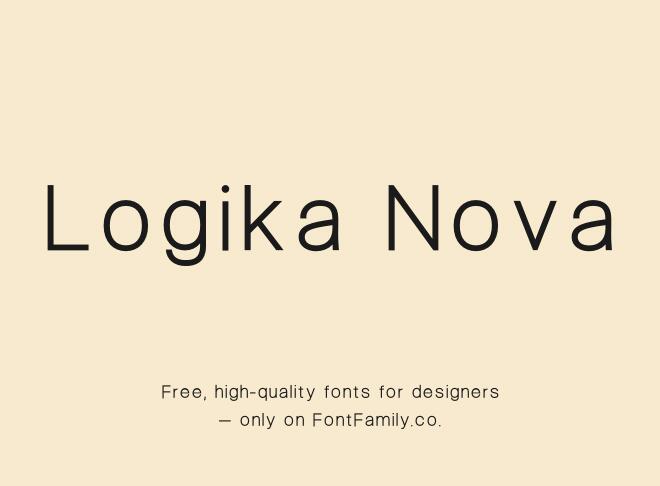
Logika Nova Font
Logika Nova Font, designed by Radomir Tinkov, is a modern, geometric, and minimalistic typeface. Released in 2020, it showcases a clean, streamlined design that is perfect for professional use. This sans-serif font is specially designed for digital screens, making it an ideal choice for web design, app interfaces, and digital media. Logika Nova Font stands out due to its perfect balance of form and function, delivering high legibility even in small sizes. Compared to other fonts, Logika Nova Font offers a more modern and sophisticated feel, making it a great choice for brands that wish to convey a sense of professionalism and modernity. For designers seeking a versatile yet stylish font, Logika Nova Font is a solid choice.
Author | Radomir Tinkov |